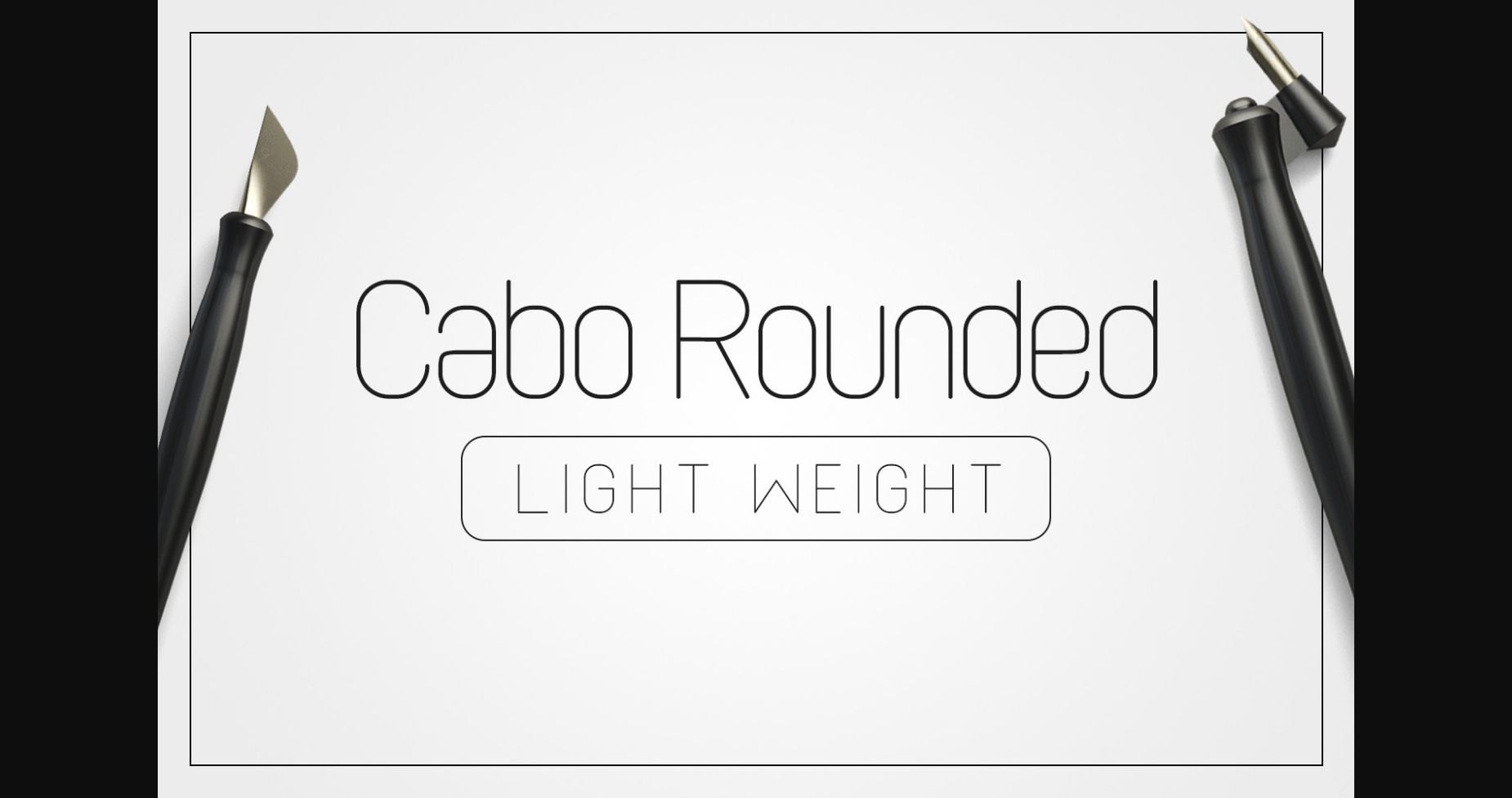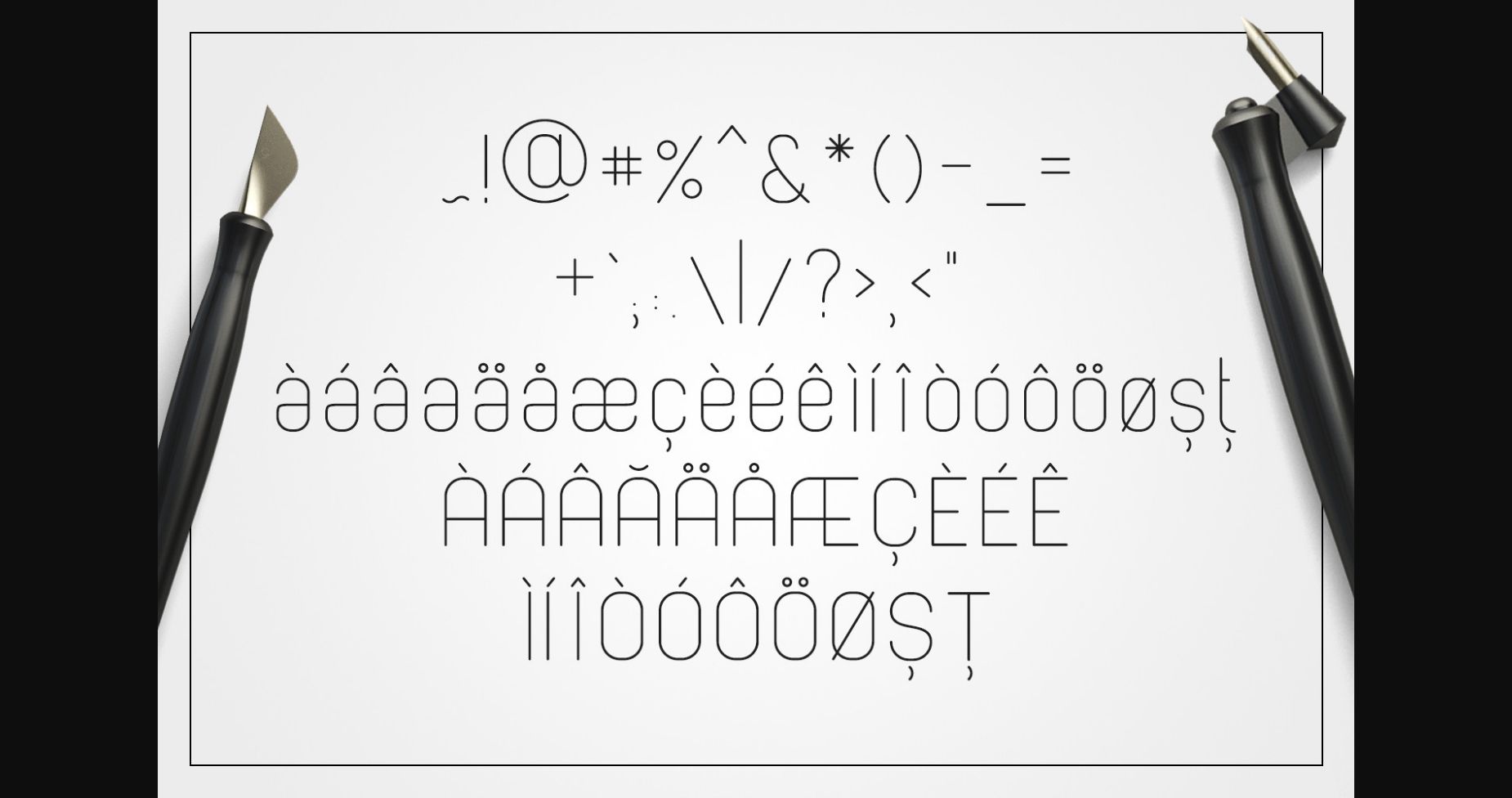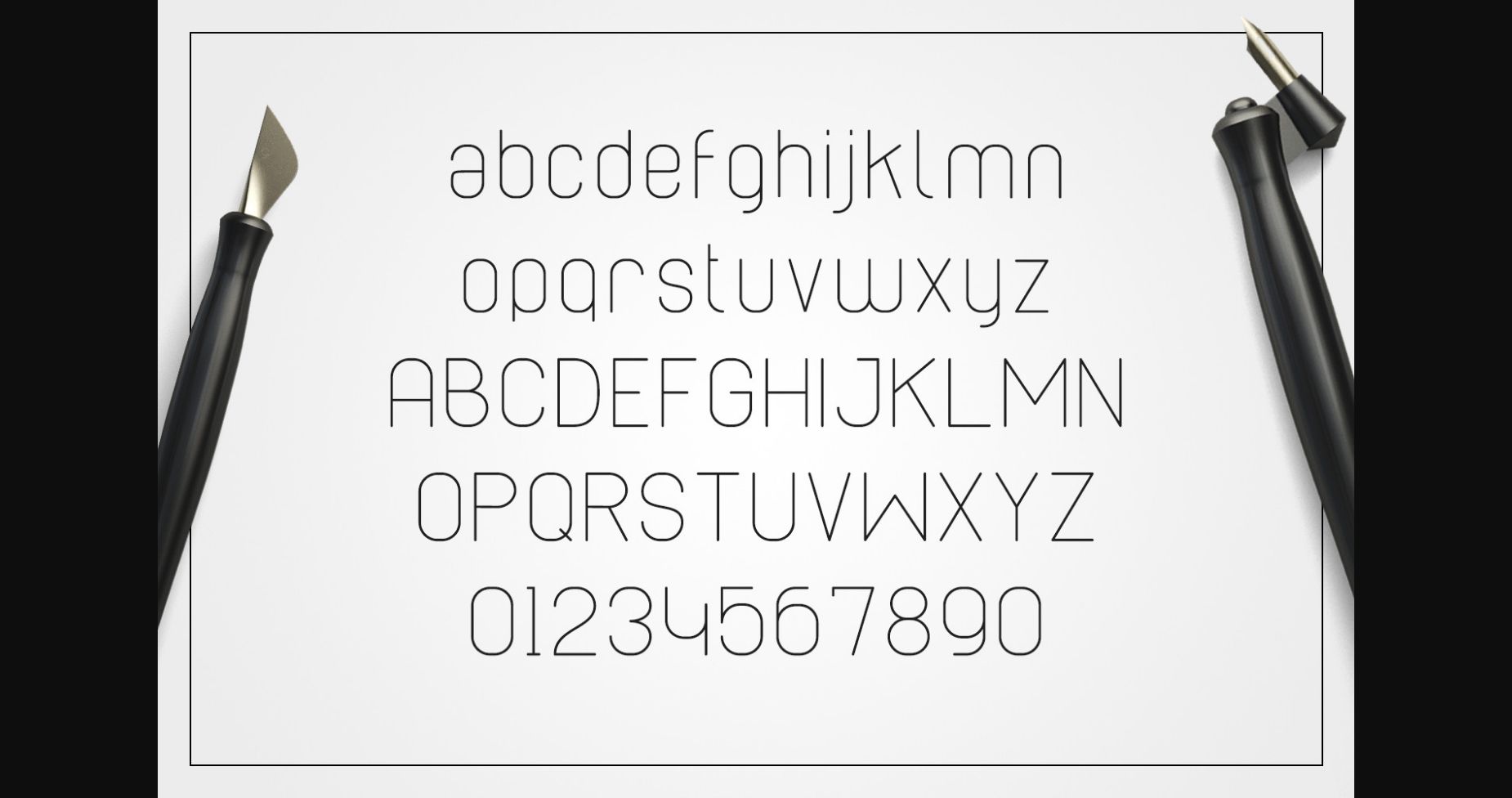
Cabo Rounded Light Font
About Cabo Rounded Light Font
Cabo Rounded Light is a clean and adaptable sans serif font. Suitable to a wide variety of designs due to its neat and simple style, this font has the potential to become your favorite go-to font, no matter the occasion!